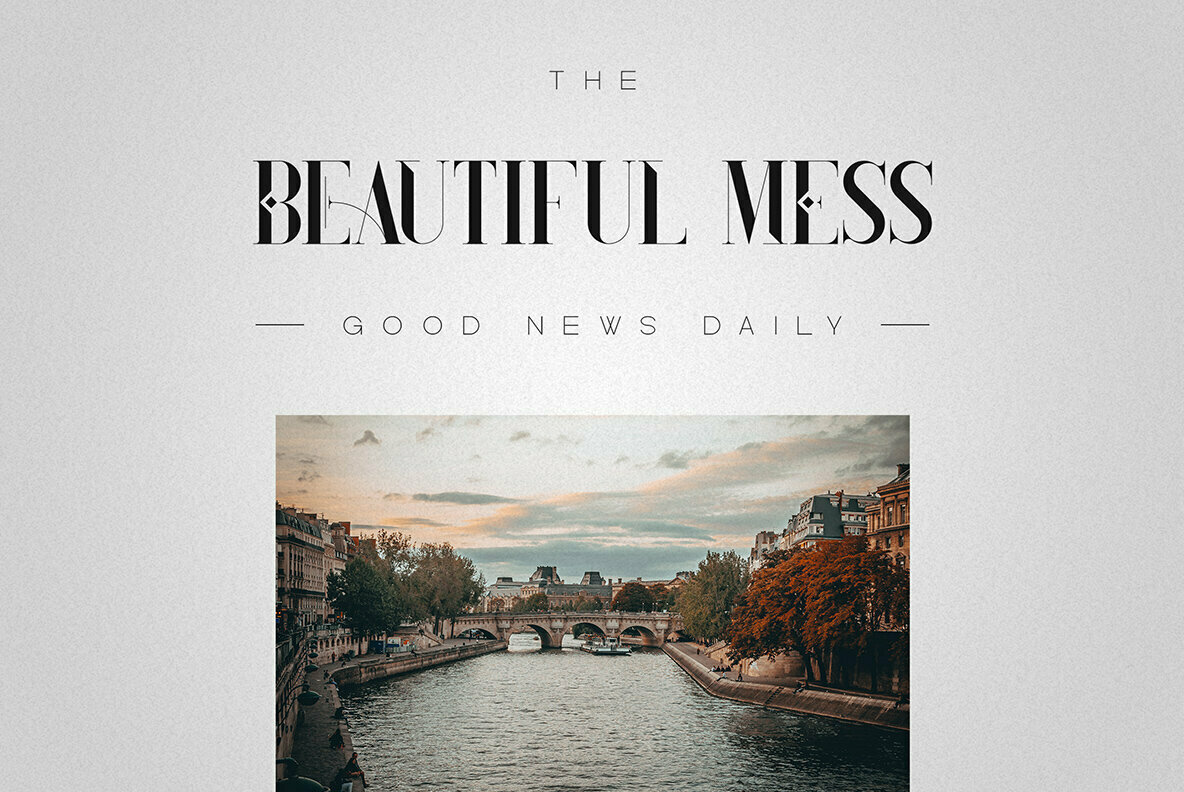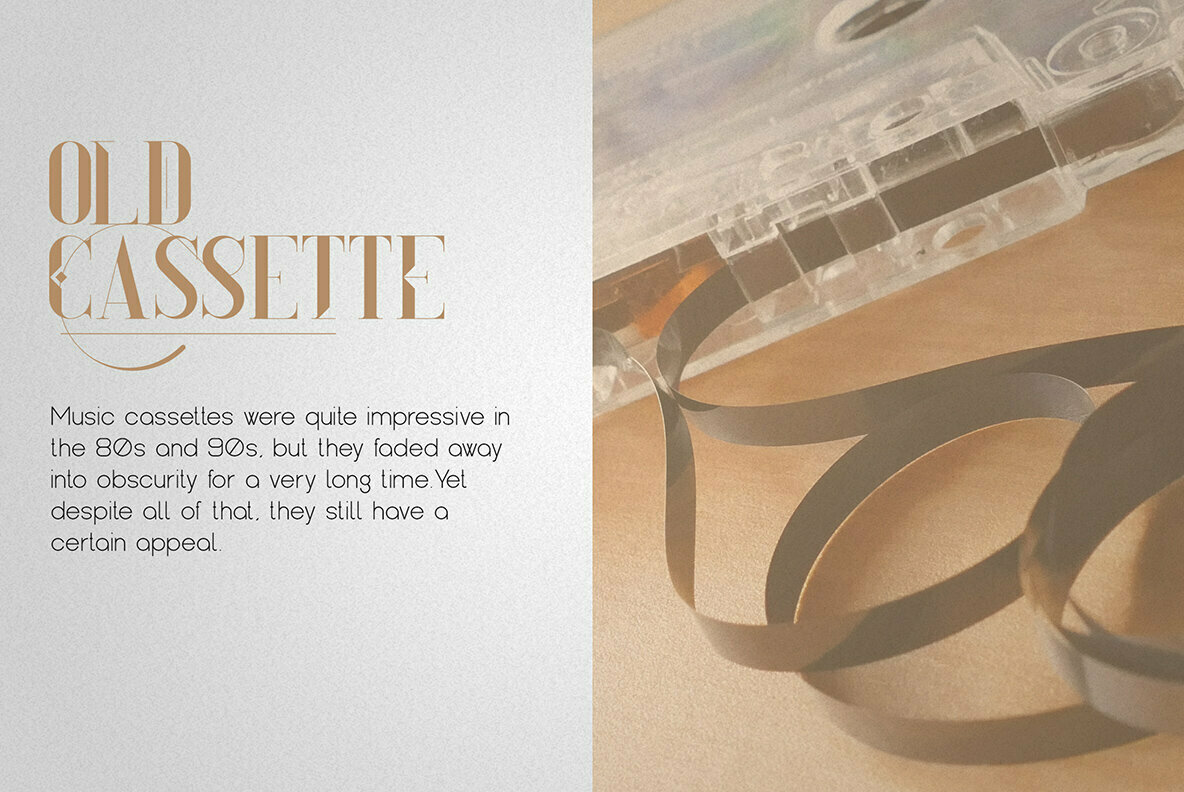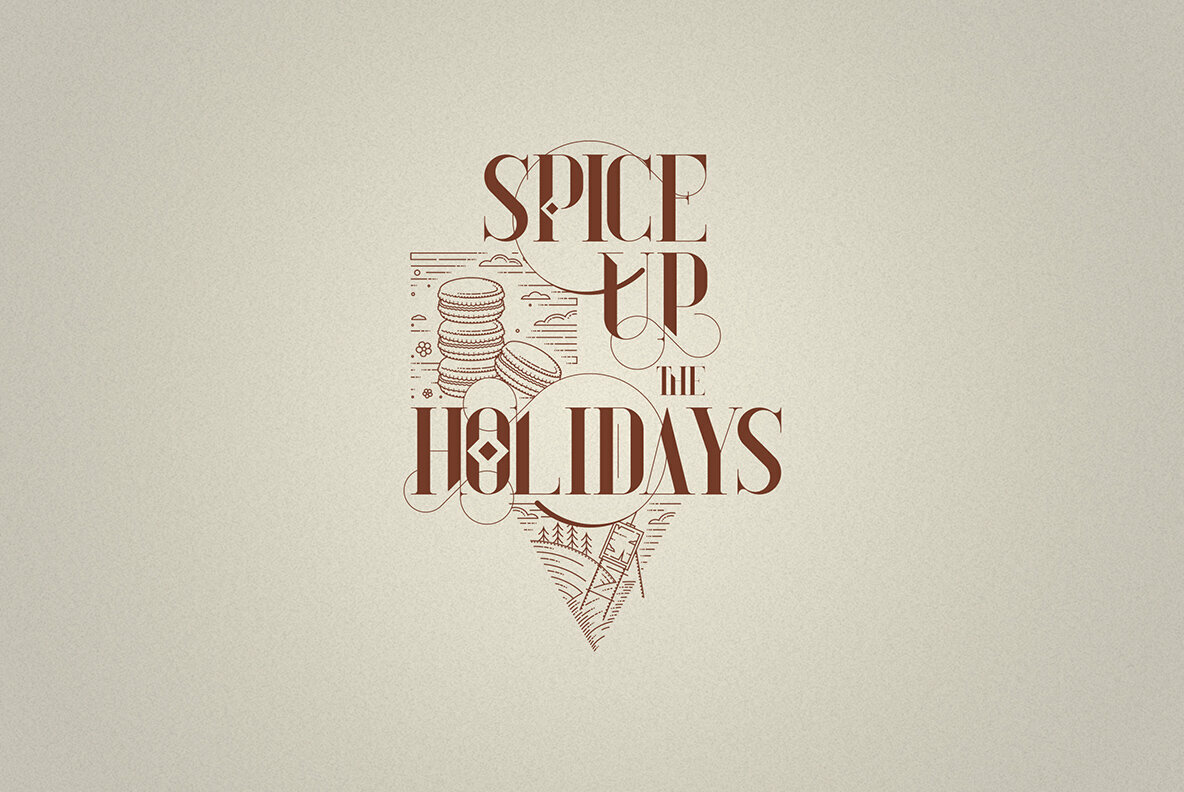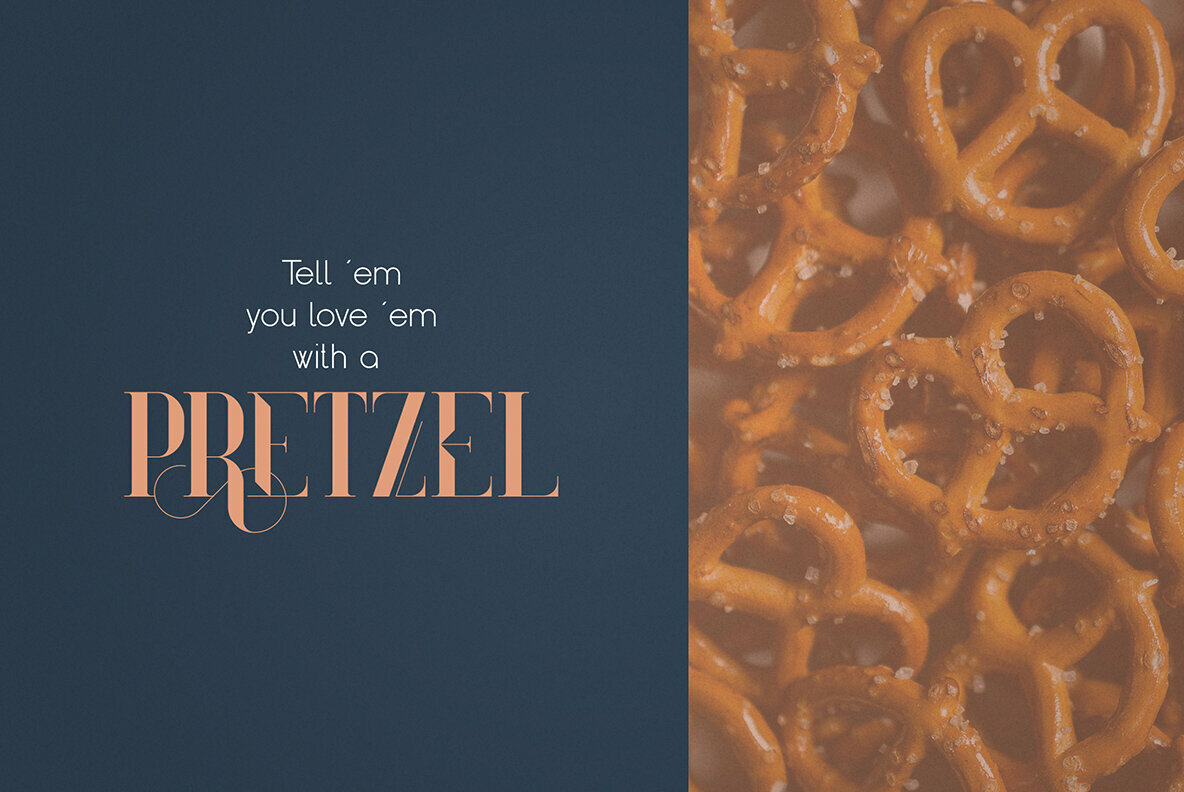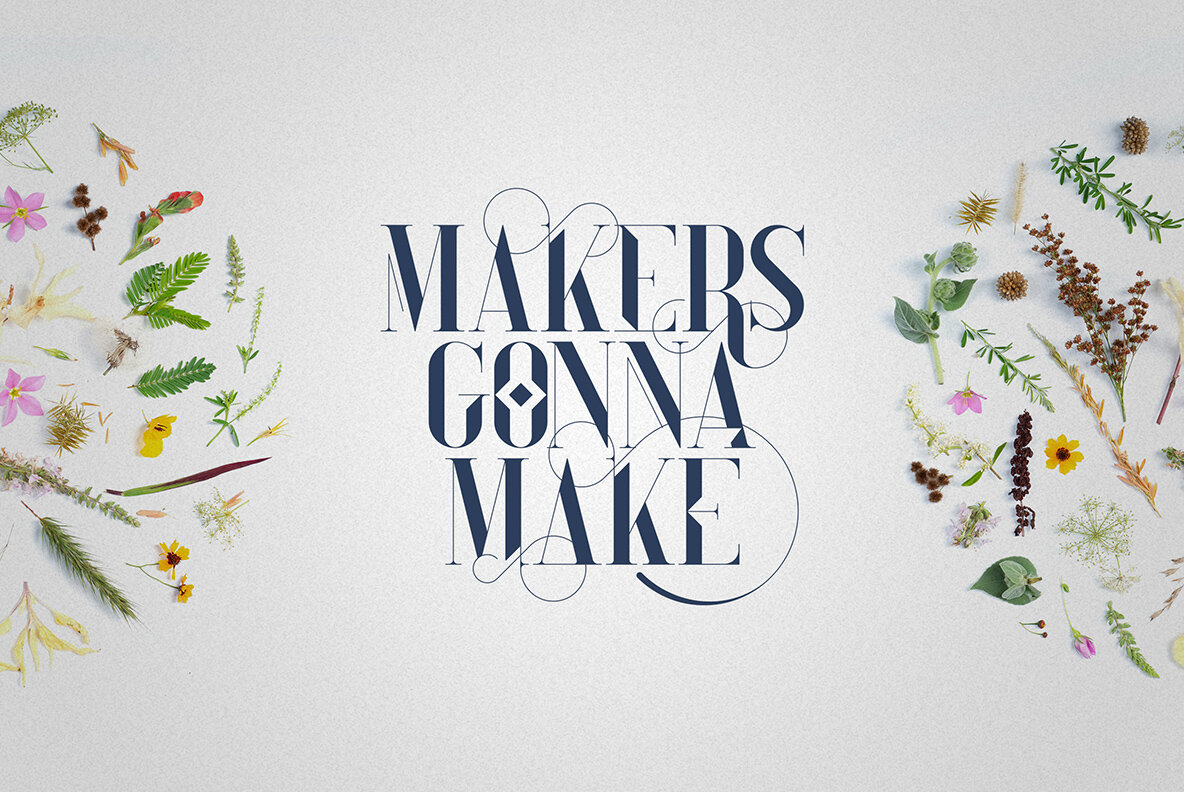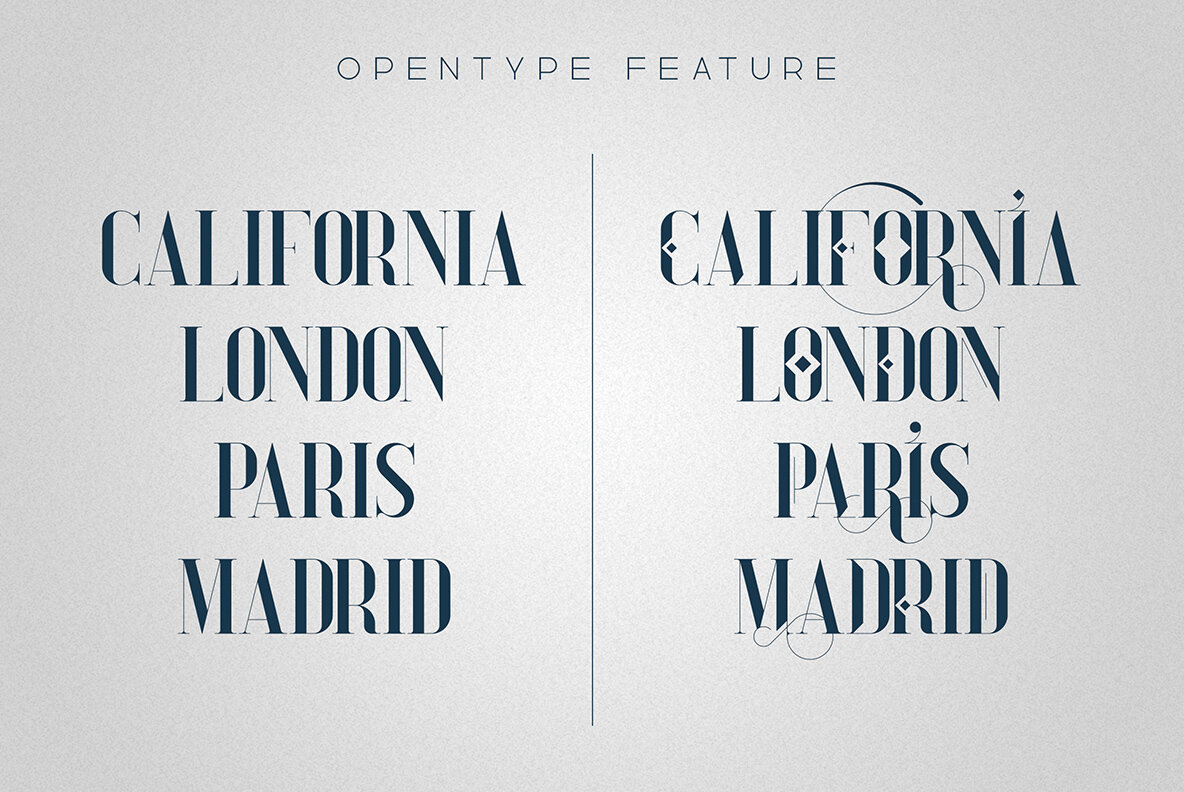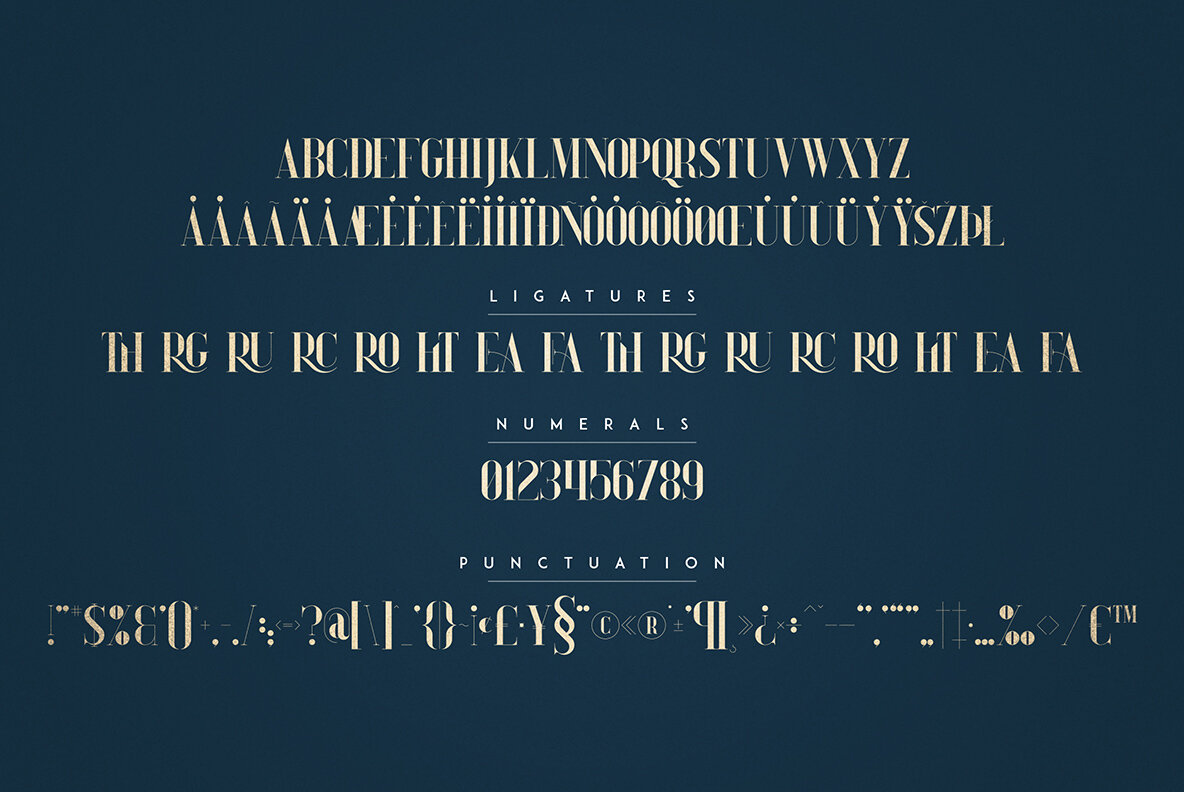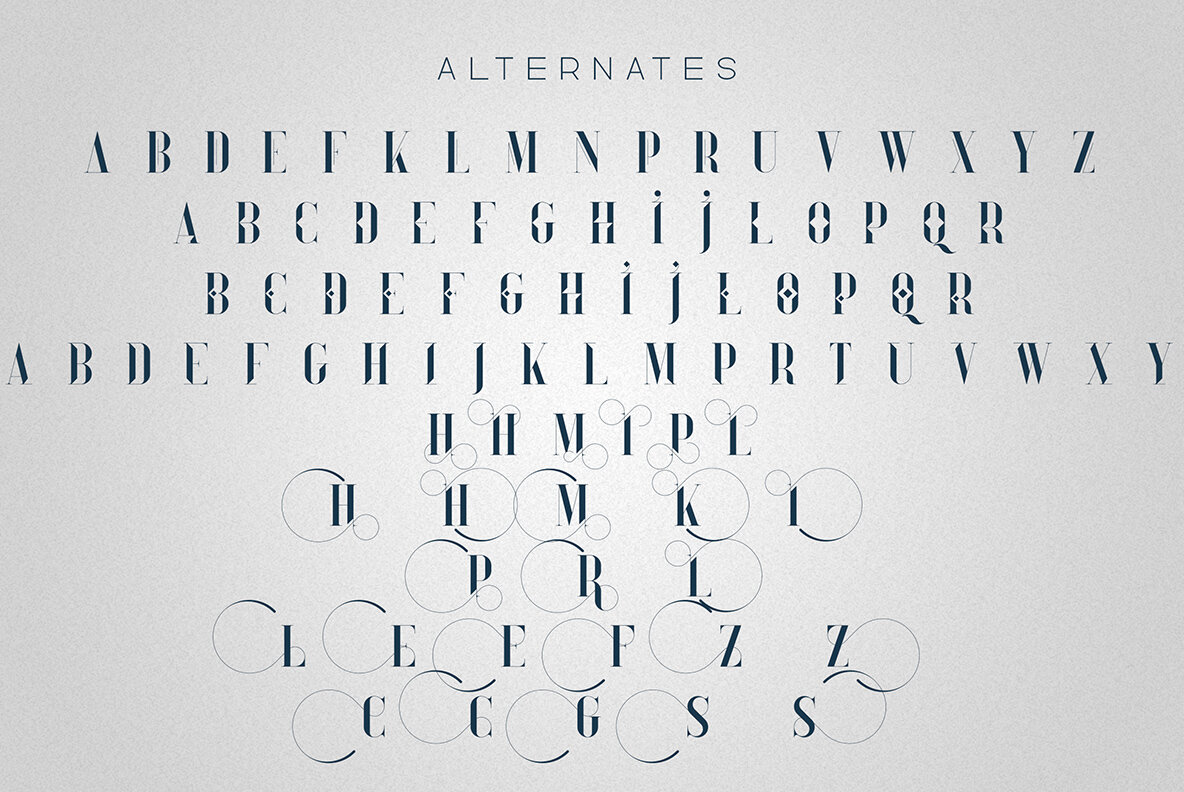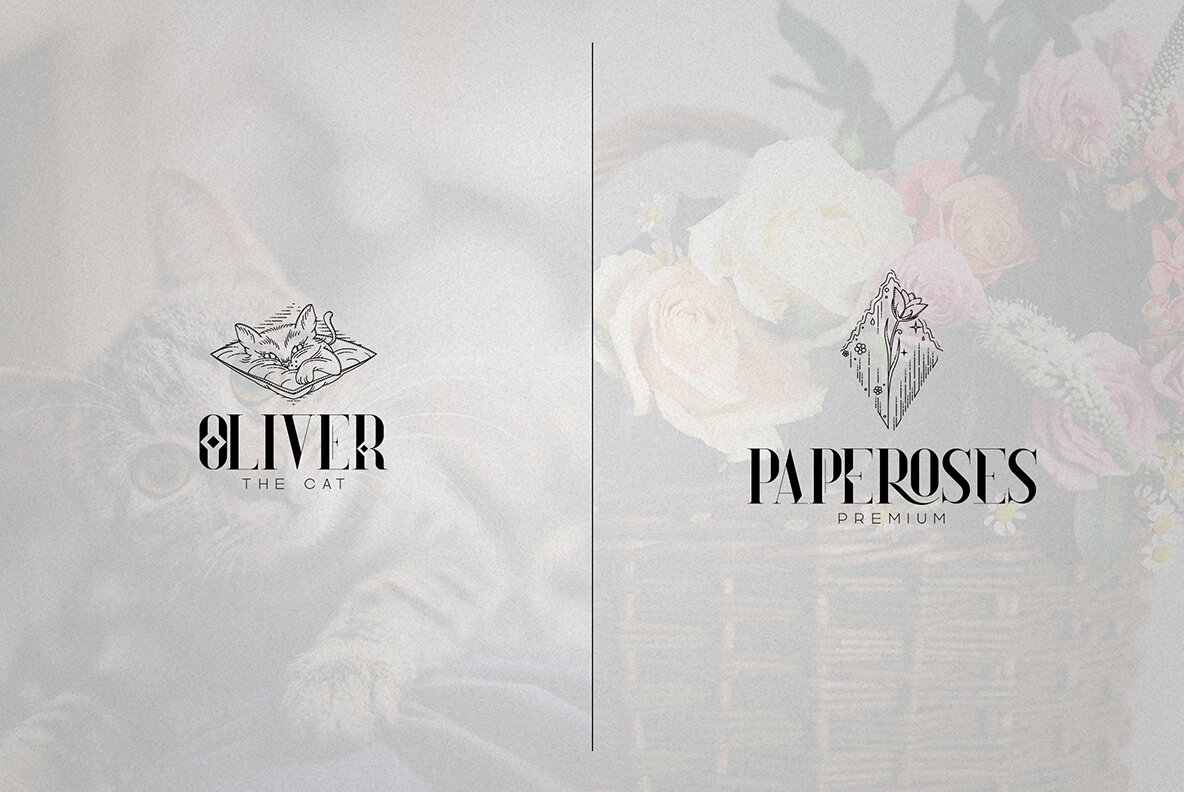
Daylight Dreams and Extras Font
Daylight Dreams Fonts and Extras (9 fonts)
Daylight Dreams is elegant, creative font with 22 awesome vector designs, 22 logo templates, photoshop styles and multilingual support. It's a very versatile font that works great in large and small sizes.
Daylight Dreams styled serif is perfect for branding projects, home-ware designs, product packaging, magazine headers - or simply as a stylish text overlay to any background image.
- Uppercase, Numeral, Punctuation & Symbol
- Multilingual support
- Added support font - Kindel Sans Serif ( 8 fonts )
- Alternate